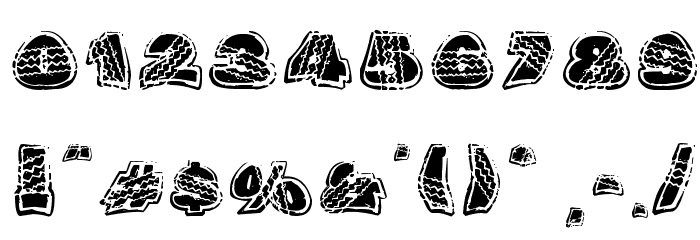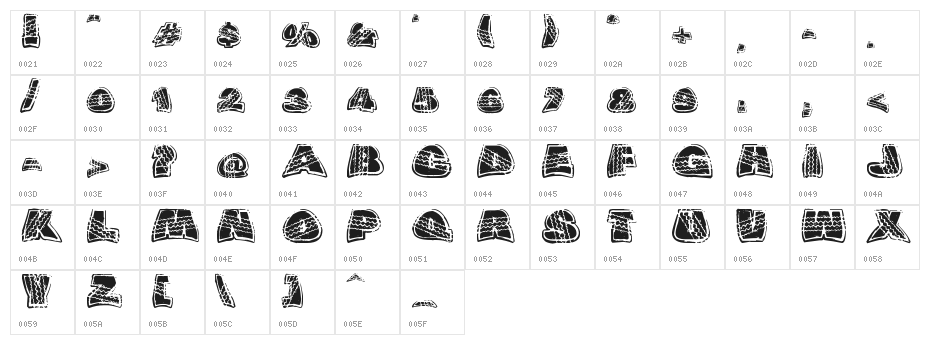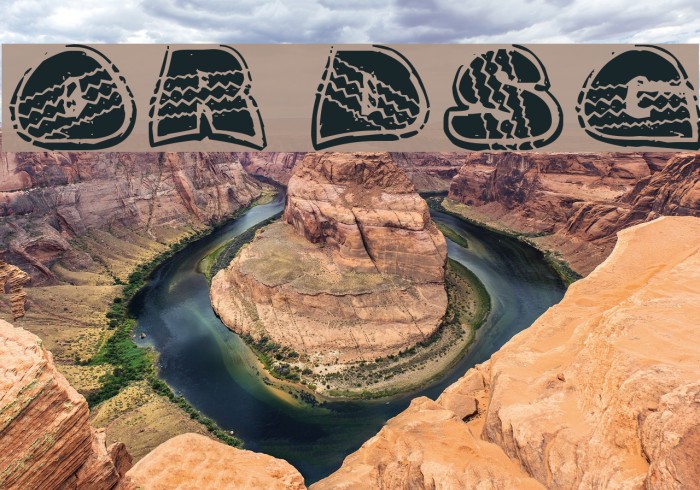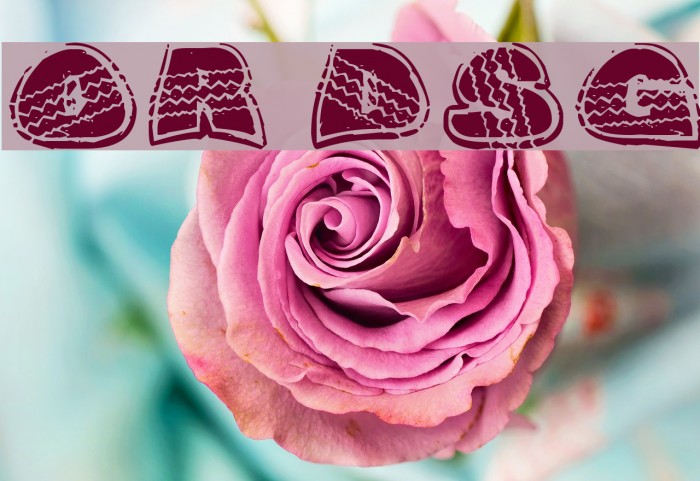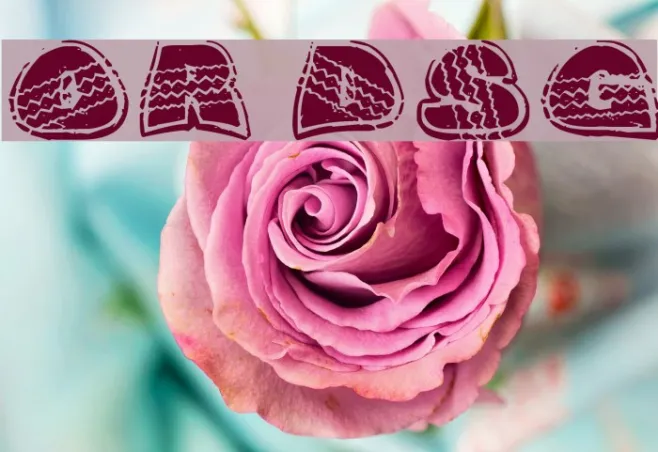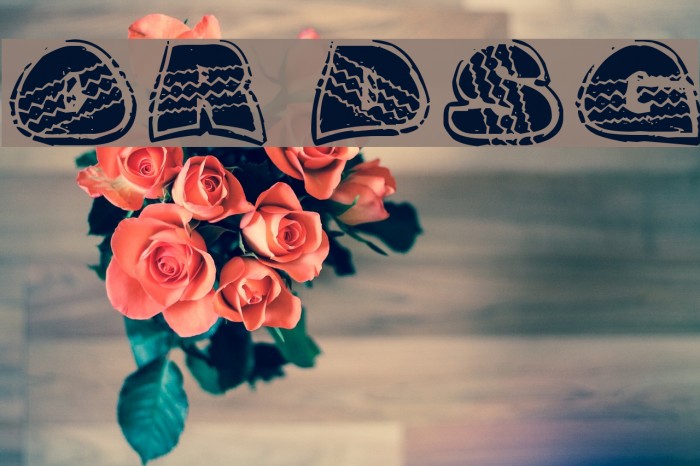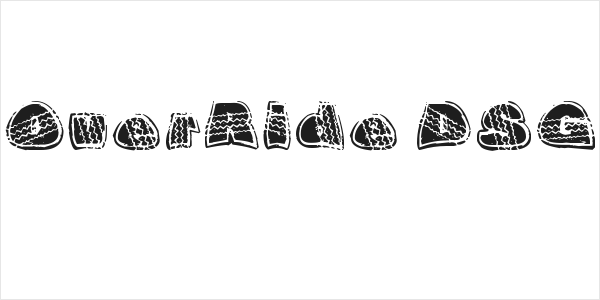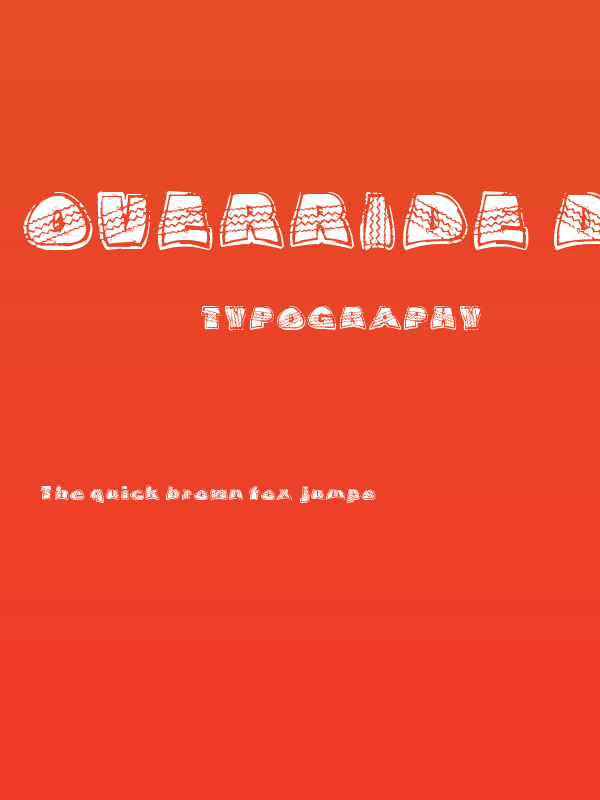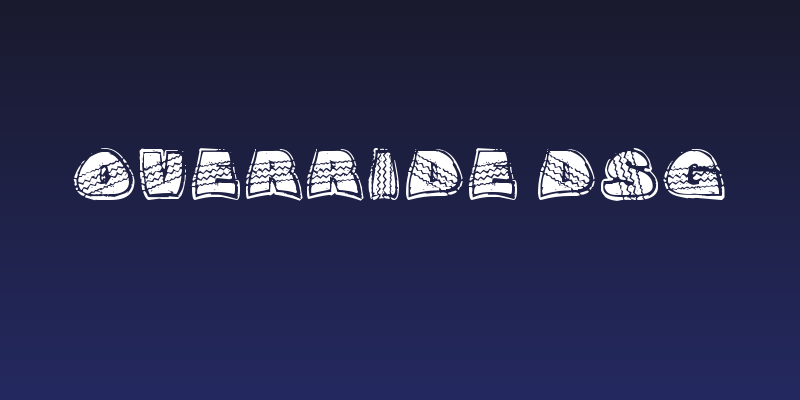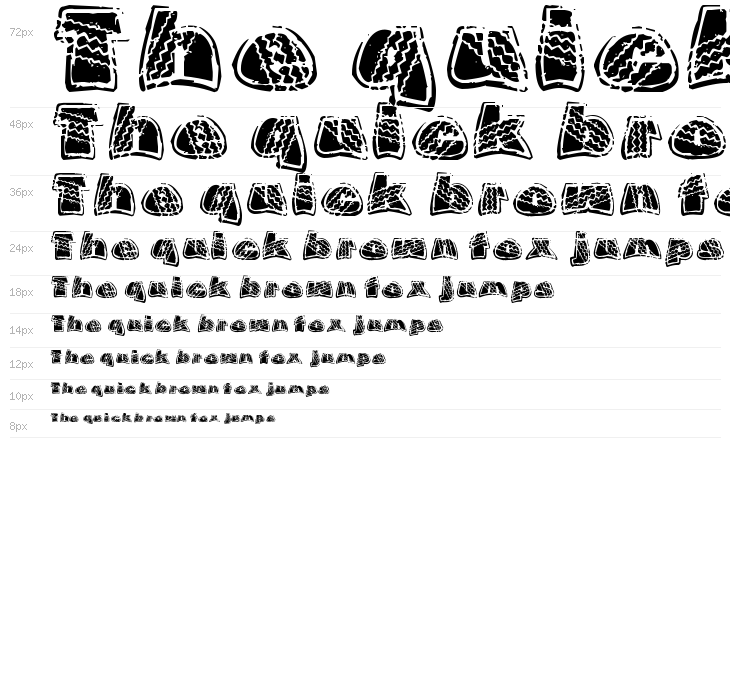
OverRide DSG Font
OverRide DSG Description
This font features a bold and dynamic design with a textured, distressed appearance. Each character is uniquely styled with a combination of thick and thin strokes, creating a sense of movement and energy. The letters have a playful, almost hand-drawn quality, with irregular edges and a slightly chaotic pattern that adds to its visual interest. The font's distinctive style makes it stand out, making it suitable for creative and artistic projects. Its boldness ensures readability while maintaining an edgy and modern aesthetic.
| Overall Style | Modern, Edgy |
| Proposed Projects | Ideal for posters, album covers, streetwear branding, and creative digital art. |